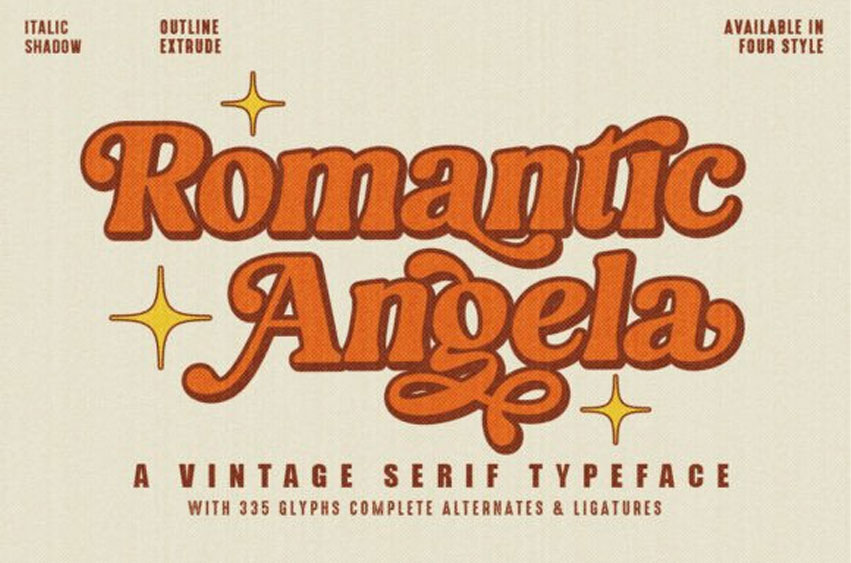
Romantic Angela Italic Font is a versatile, stylish, and fun retro display serif font. Romantic Angela comes in 4 styles, italic, extrude italic, outline italic, and shadow italic, with italics in each style. Mix each style for the perfect result.
Romantic Angela is very perfect for any design you create such as covers, branding, logos, posters, quotes, product packaging, greeting cards, headlines, merchandise, social media, and more!
Add this Romantic Angela font to any of your creative projects, and it will give a retro and vintage feel.